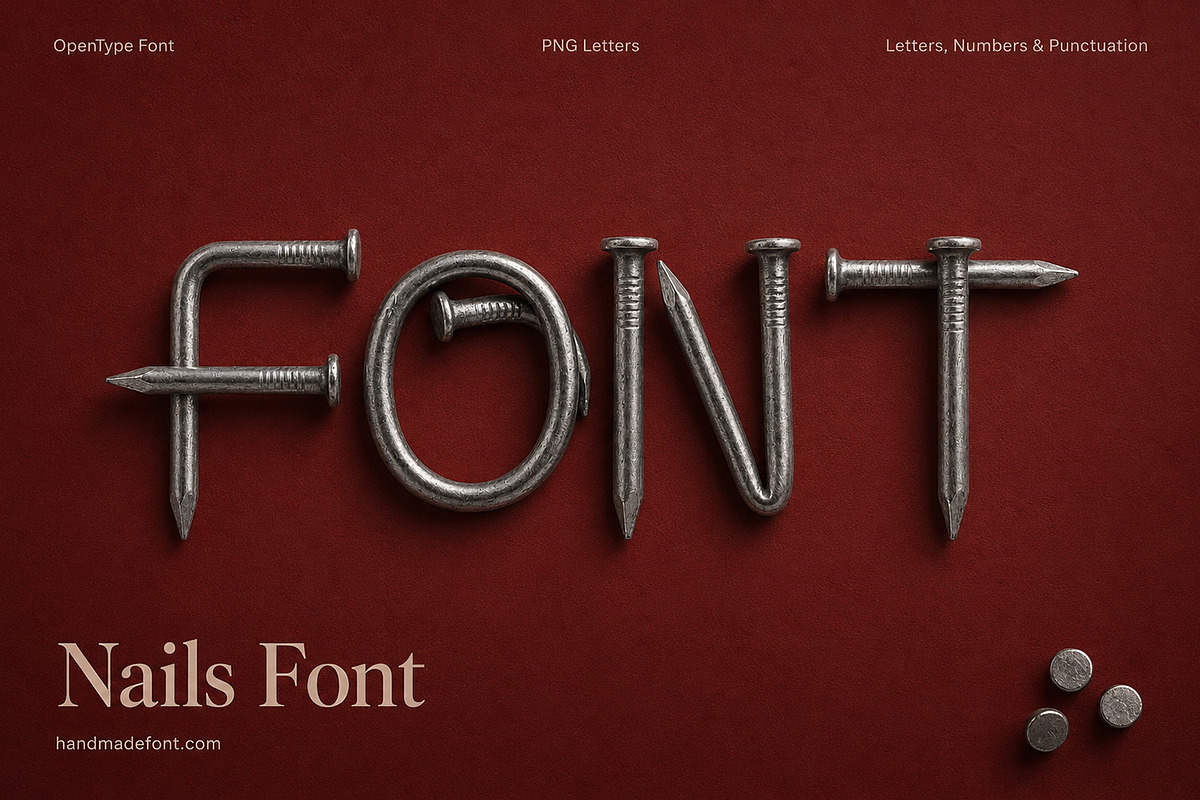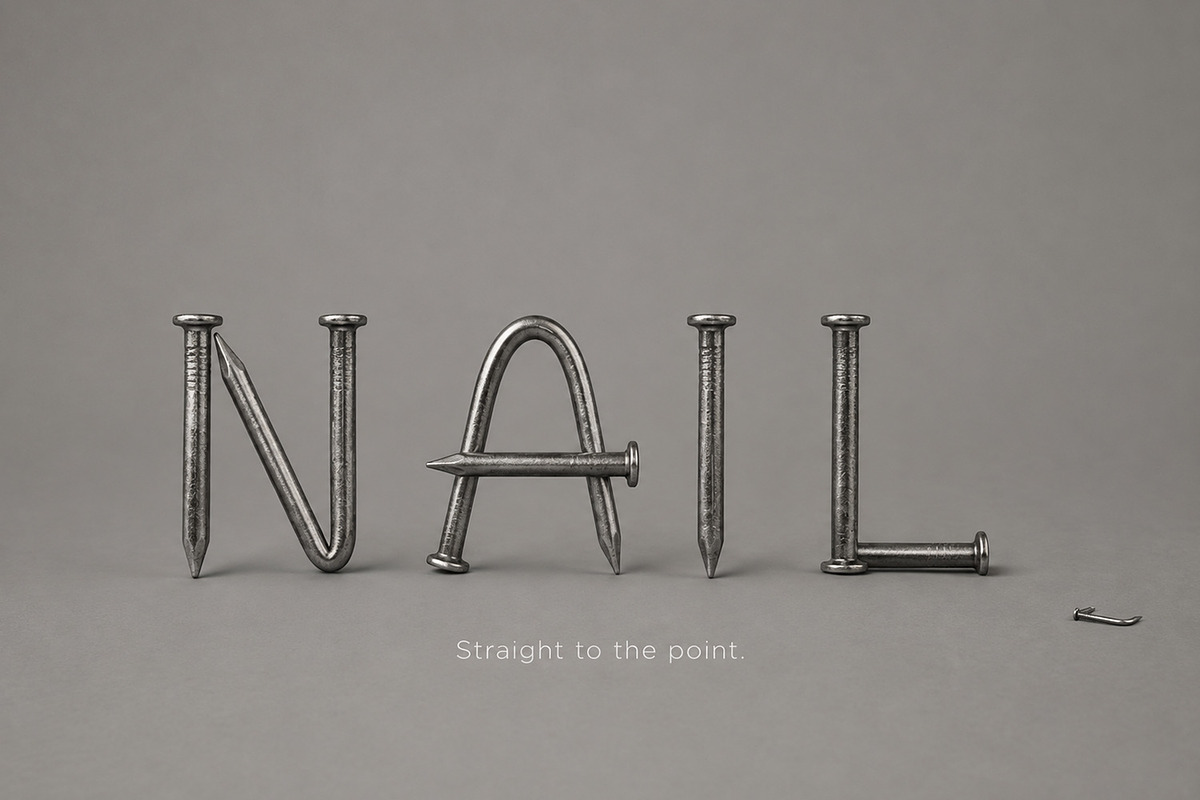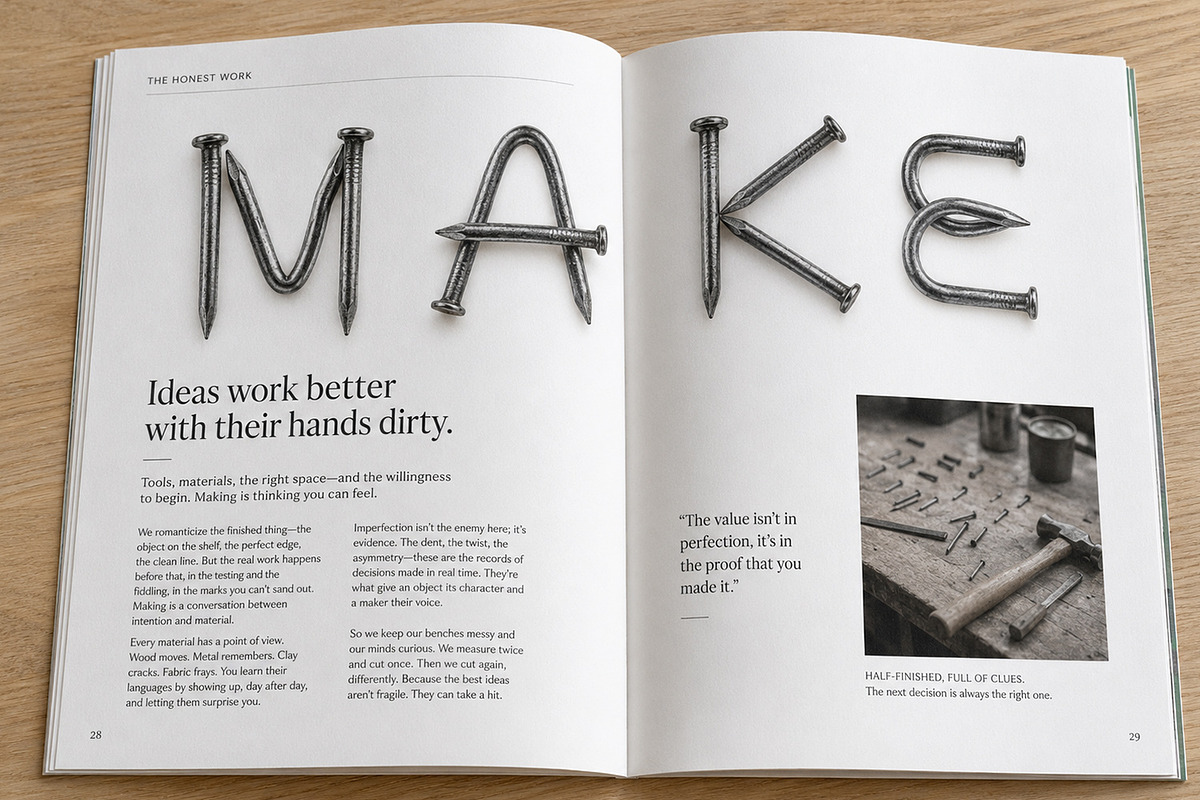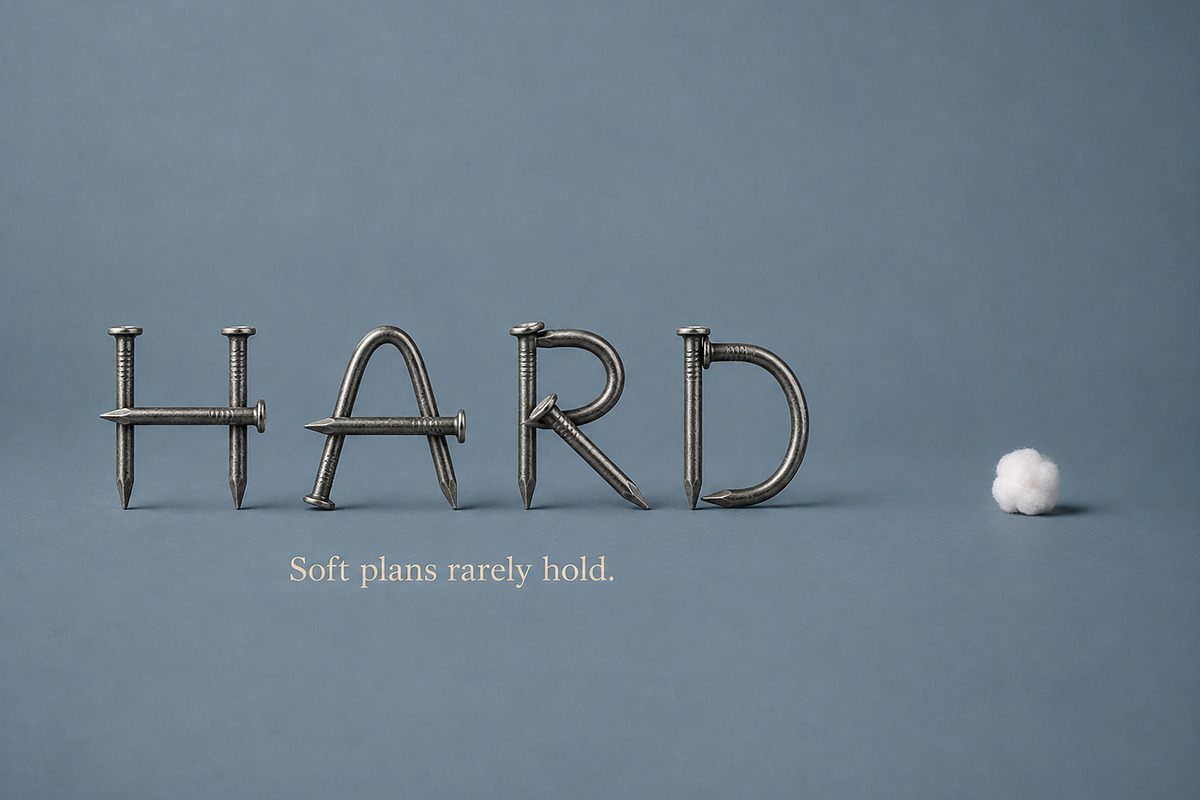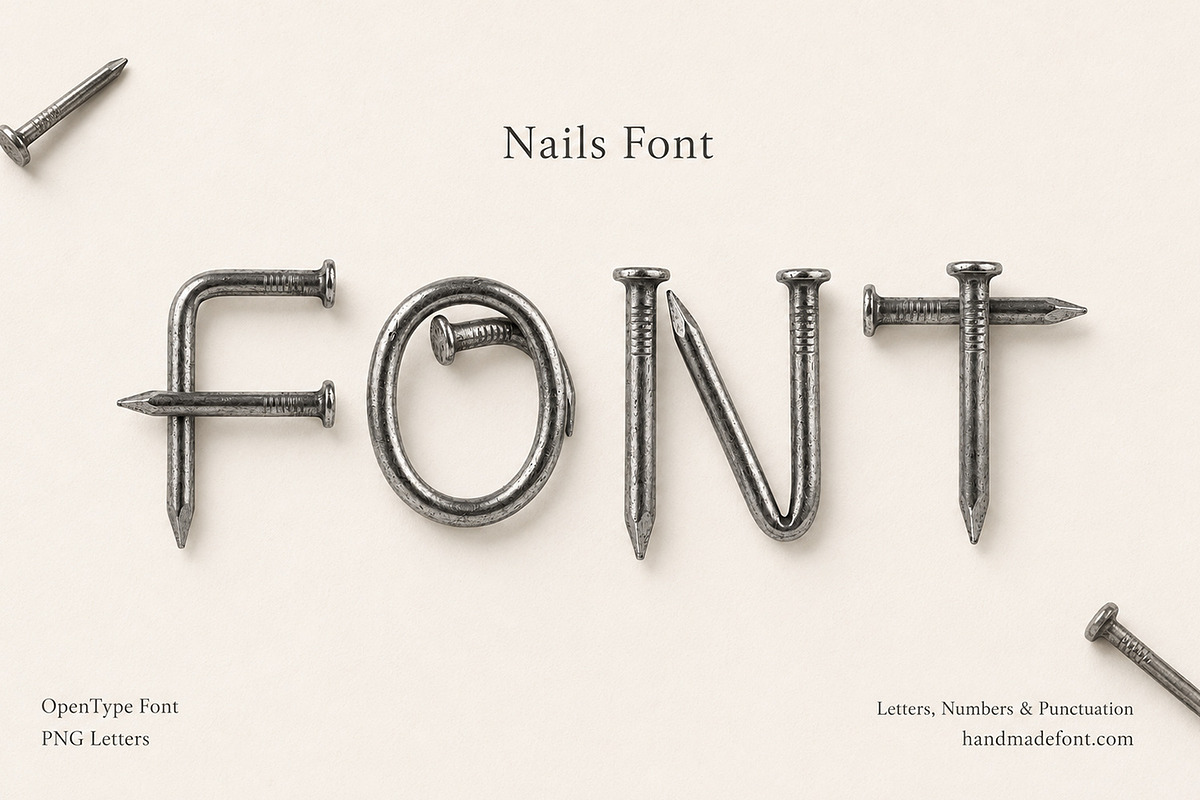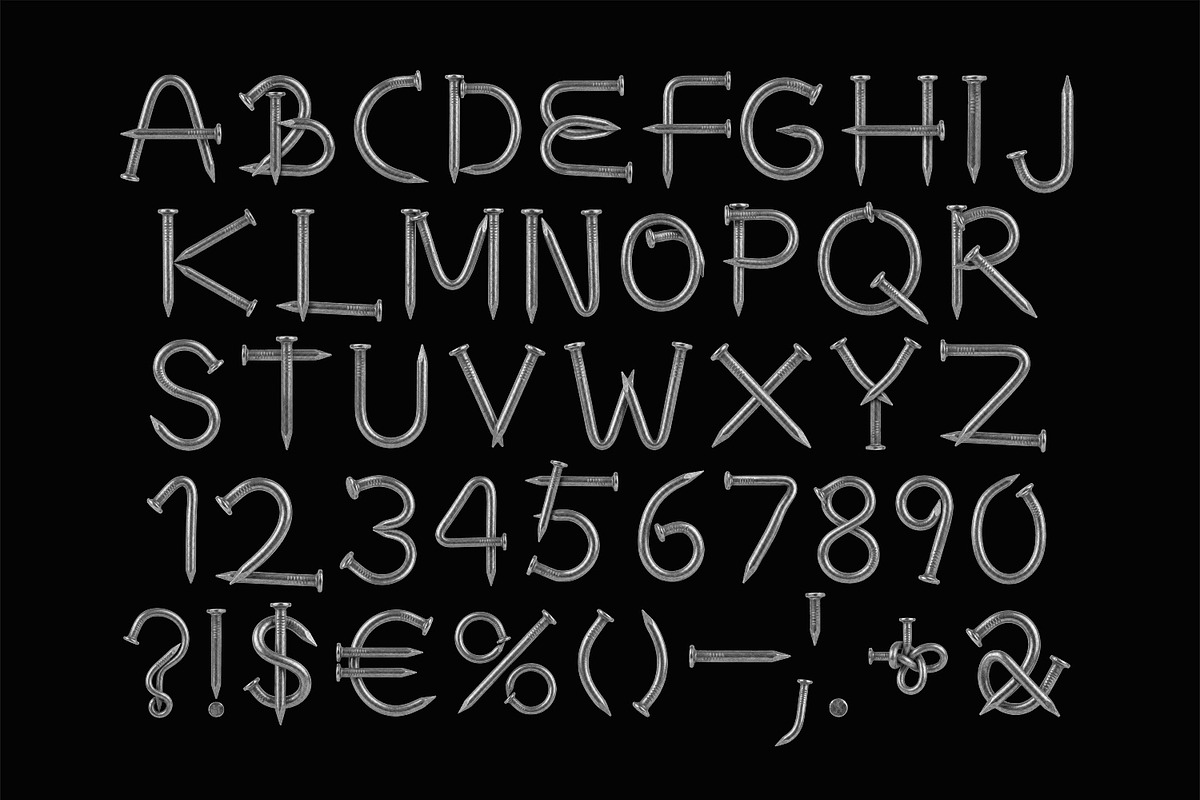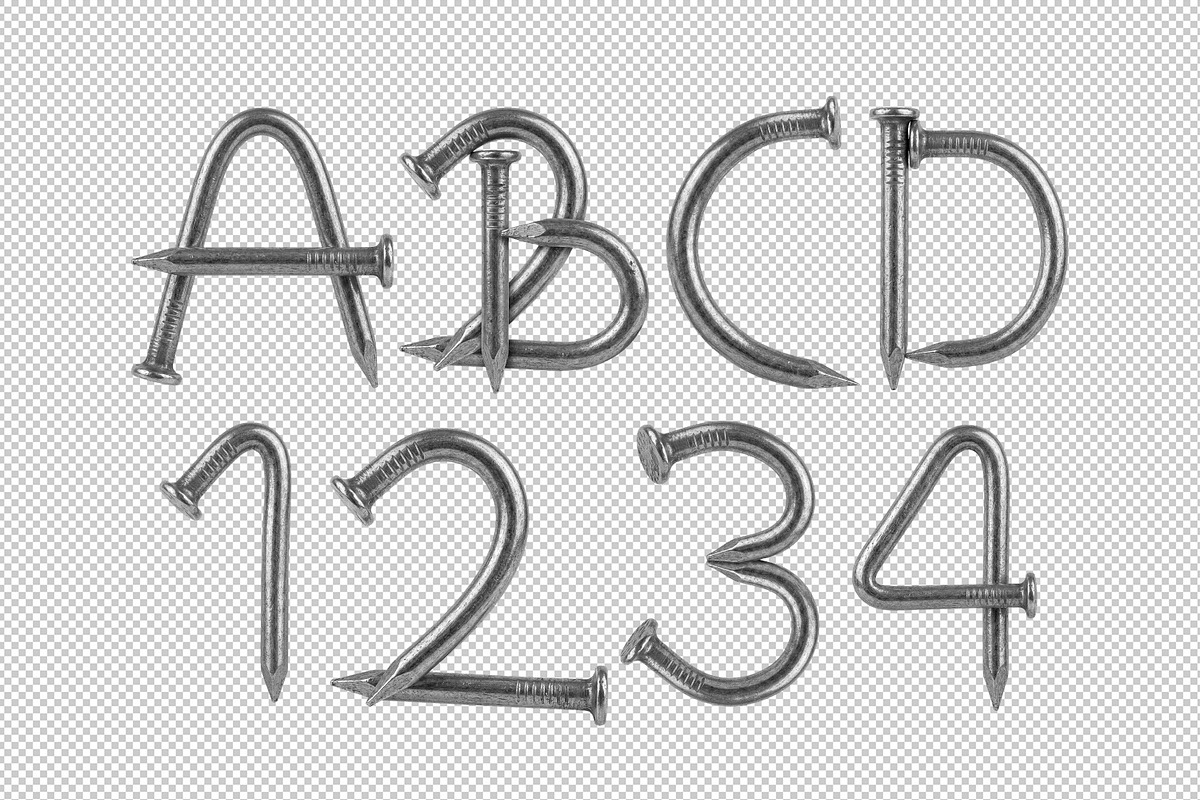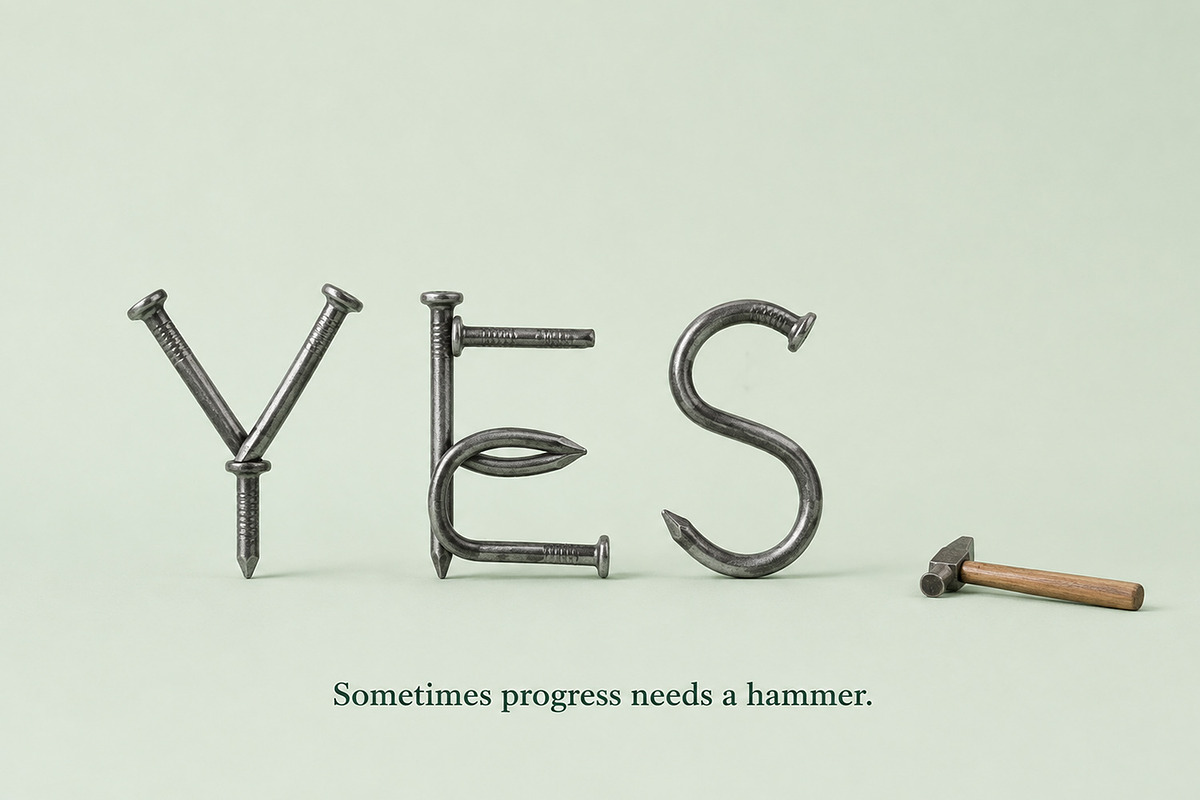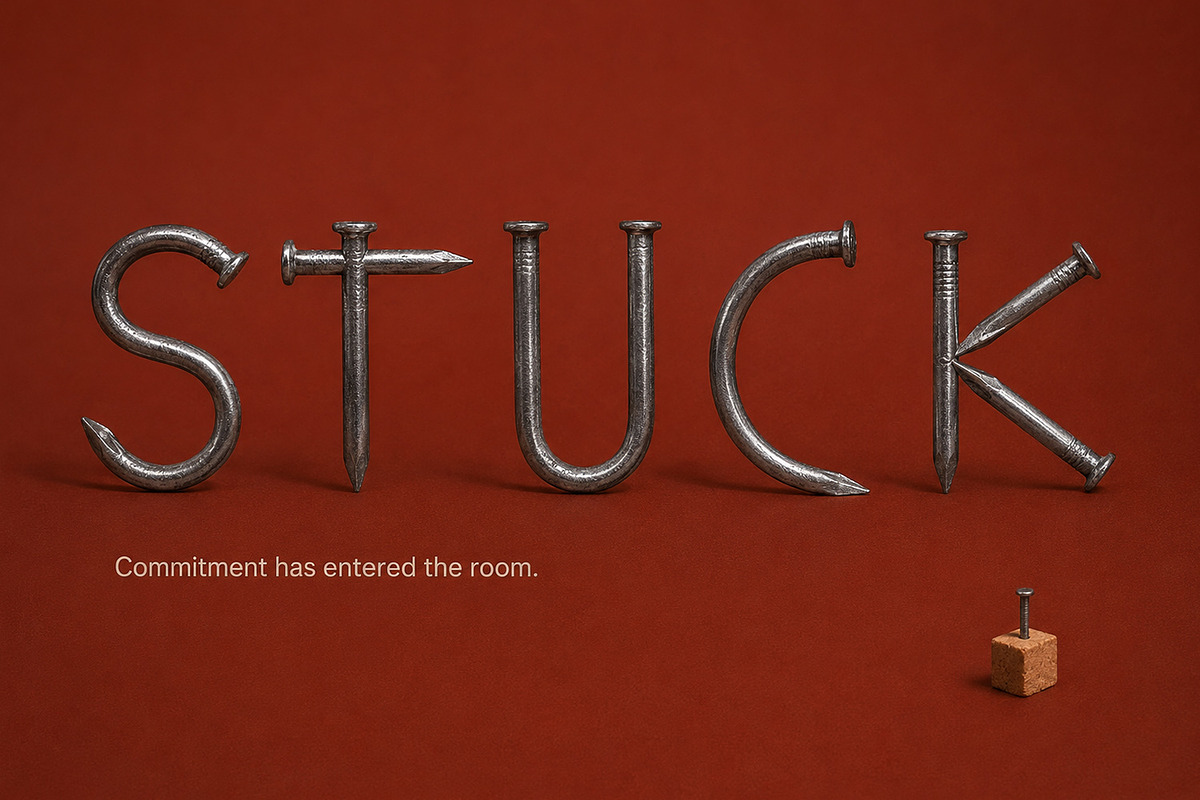
Nails Font
Nails Font is a striking handcrafted display typeface built from realistic metal nails, bringing raw industrial character to every design. Each letter is shaped from weathered steel with detailed heads, points, bends, and tactile texture, creating an authentic handmade look. It is ideal for construction branding, workshop posters, hardware packaging, rock titles, DIY projects, horror graphics, and bold social-media designs. The set includes uppercase and lowercase letters, numbers, punctuation, an OTF font file, and individual PNG characters with transparent backgrounds. Use Nails Font when you need typography that feels tough, physical, inventive, and impossible to ignore completely at a glance.